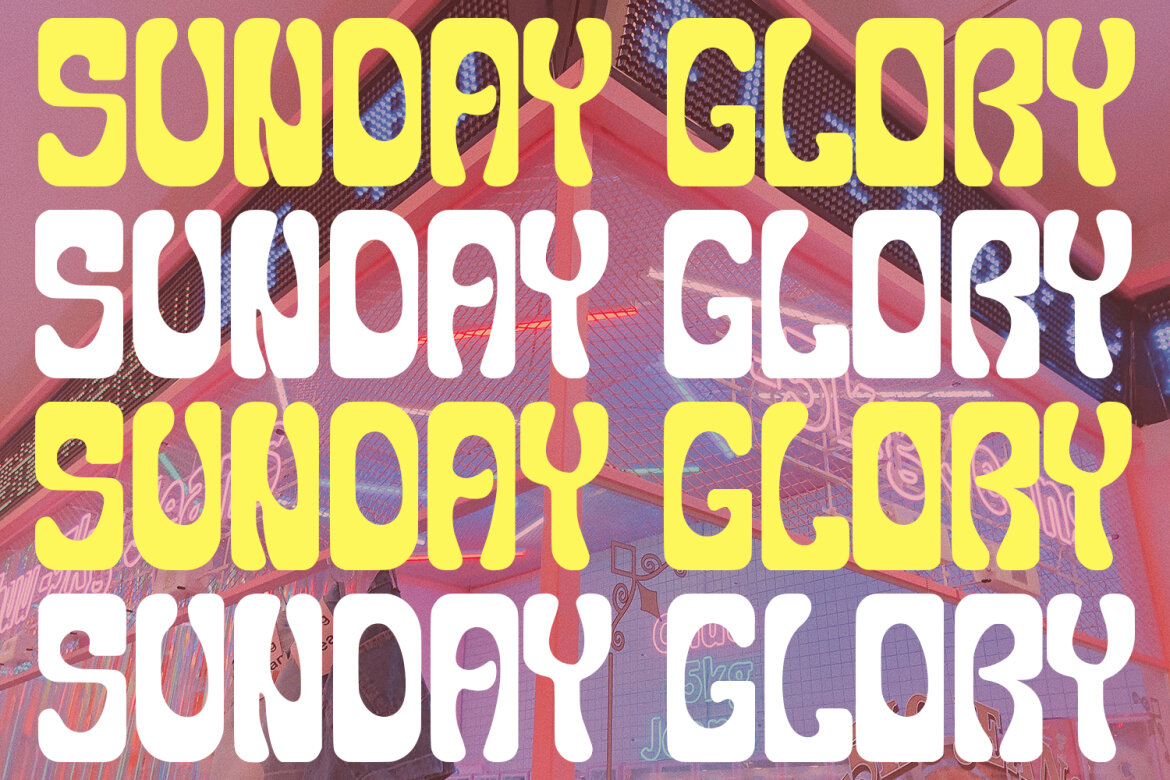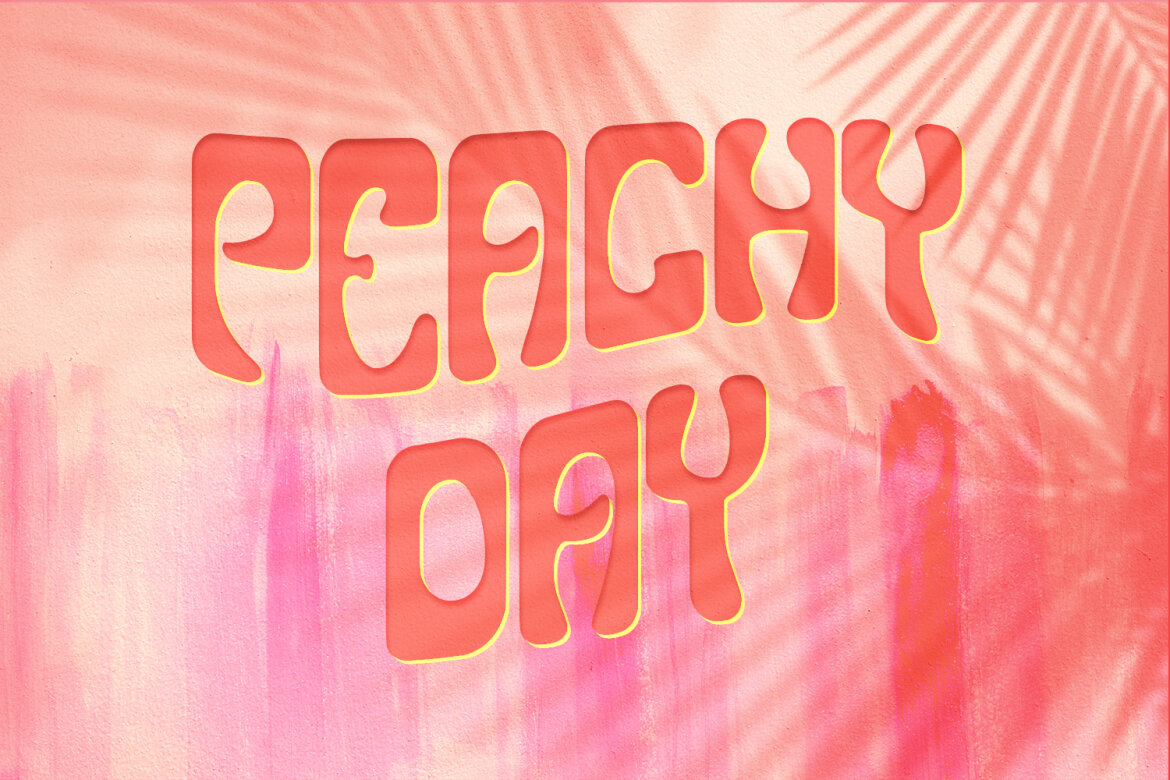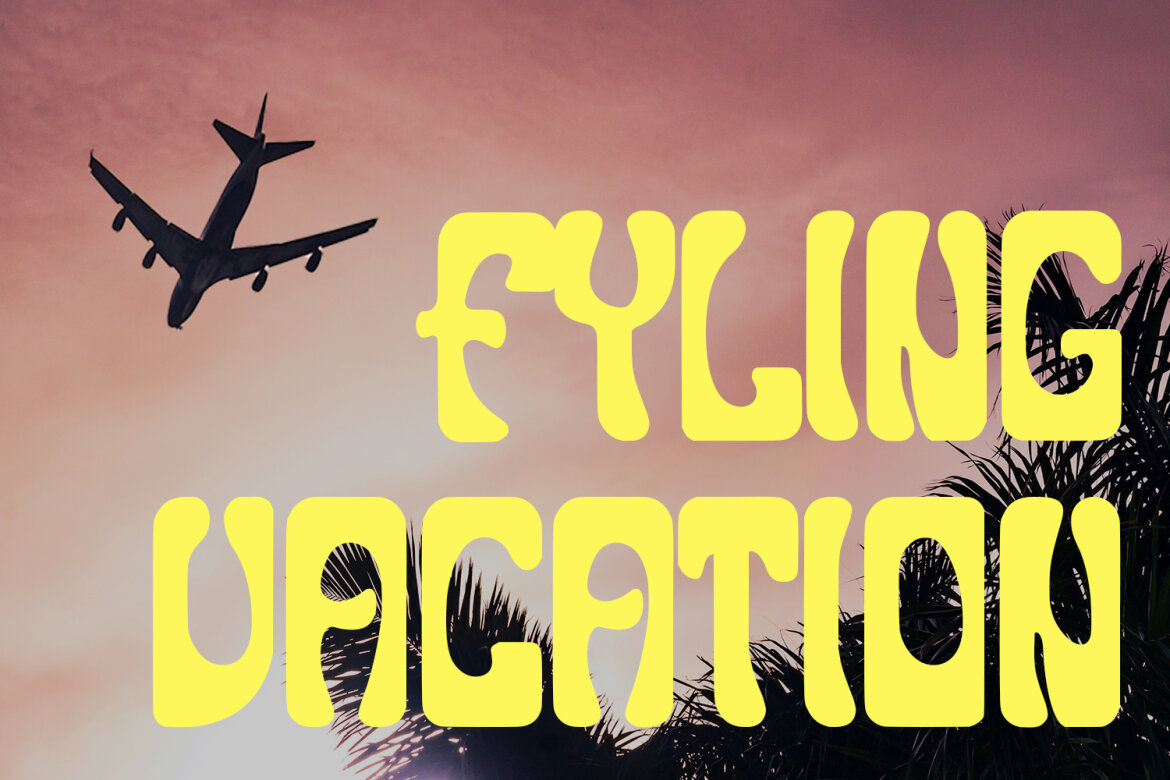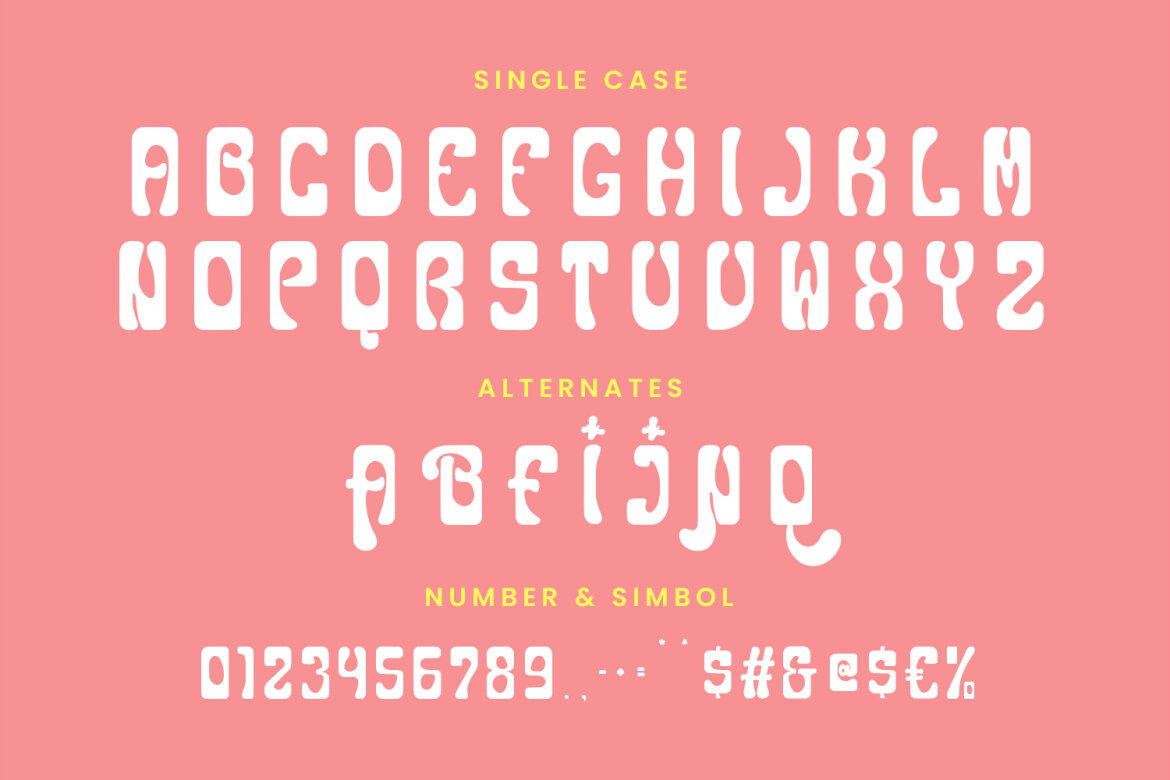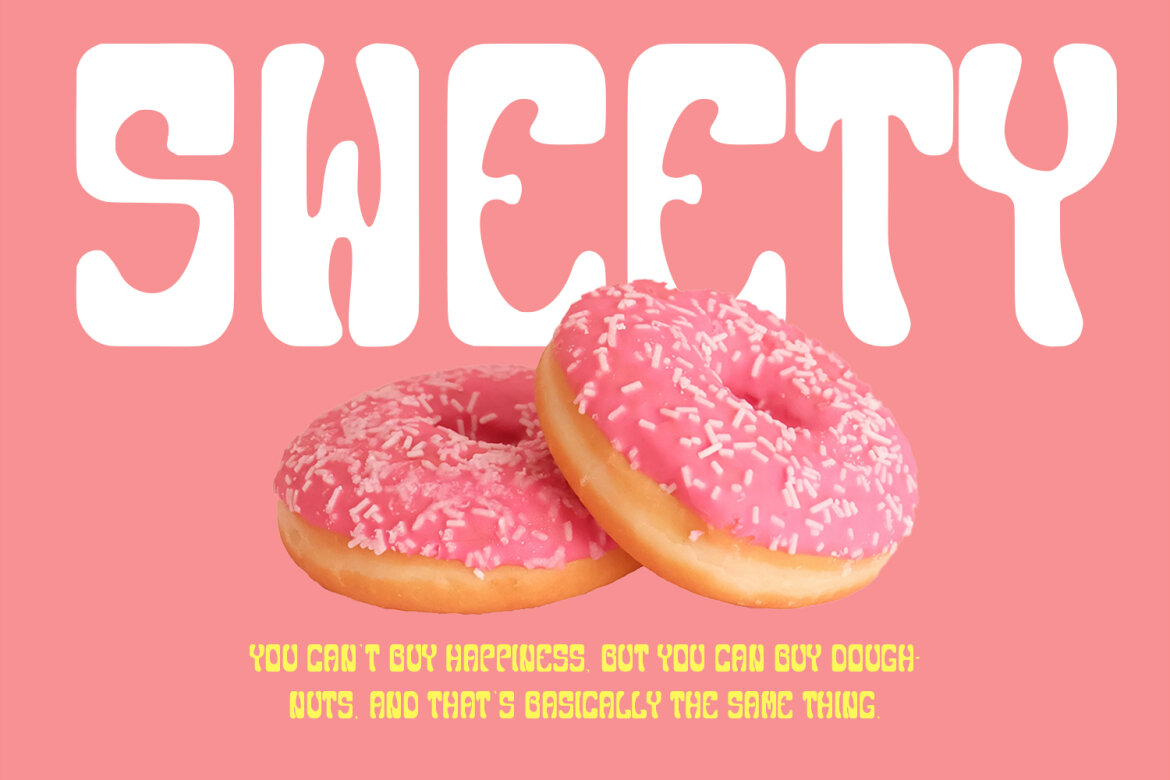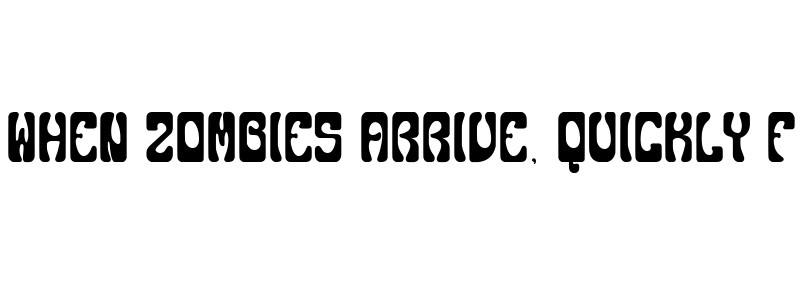
Nanncie Fancy Groovy FREE Font
Nanncie
Nanncie fancy groovy display font. Bold stroke, fun character with a bit of ligatures and alternates. To give you an extra creative work. Nanncie font support multilingual more than 100+ language. This font is good for logo design, Social media, Movie Titles, Books Titles, a short text even a long text letter and good for your secondary text font with script or serif. Make a stunning work with Nanncie font.